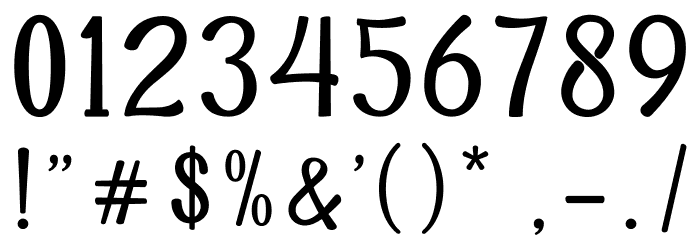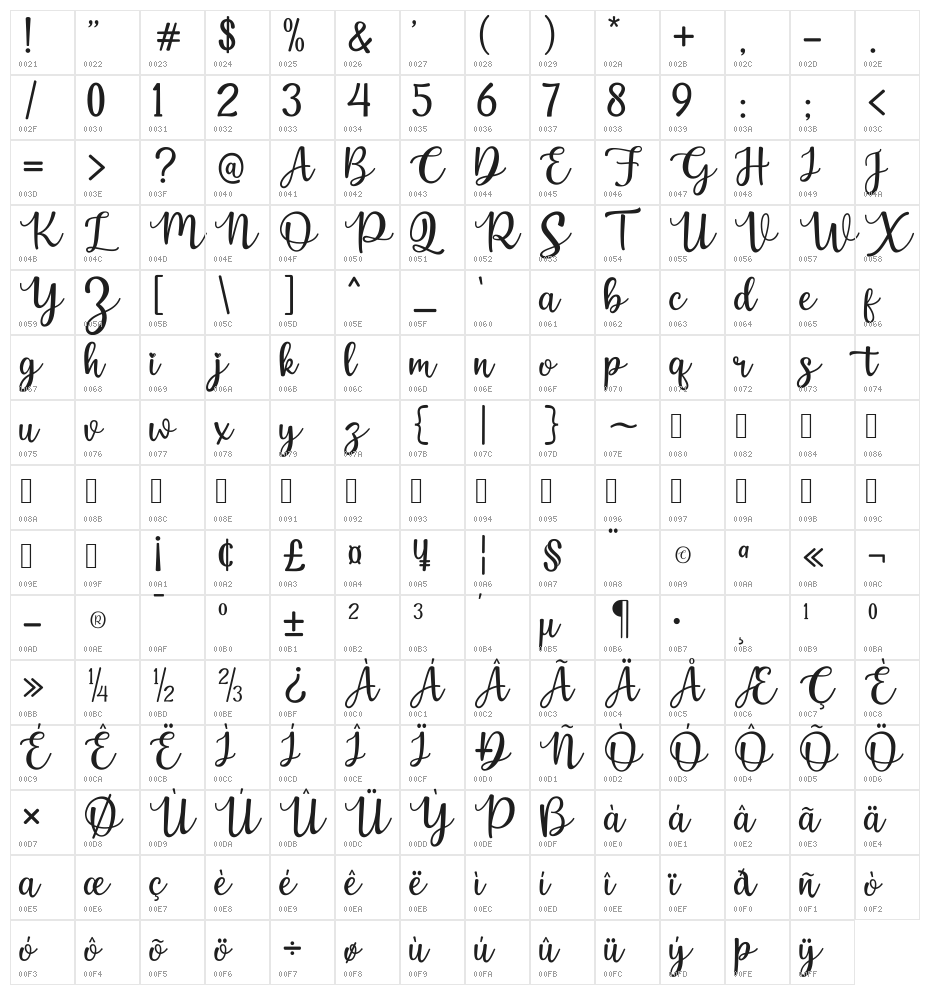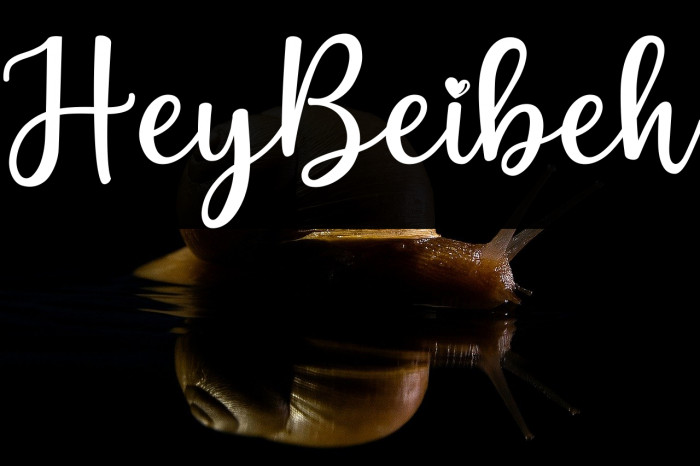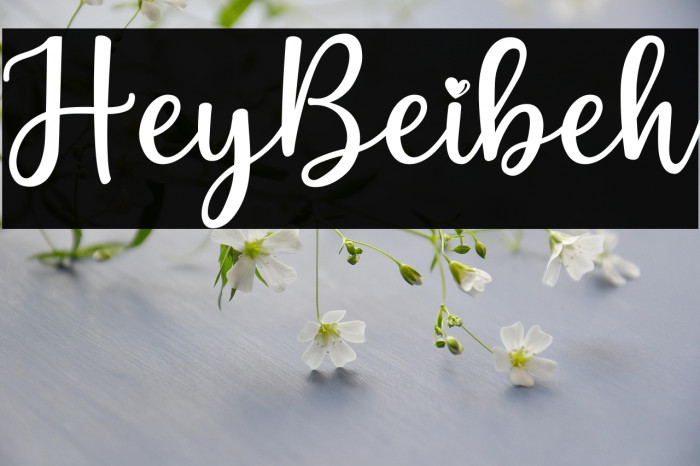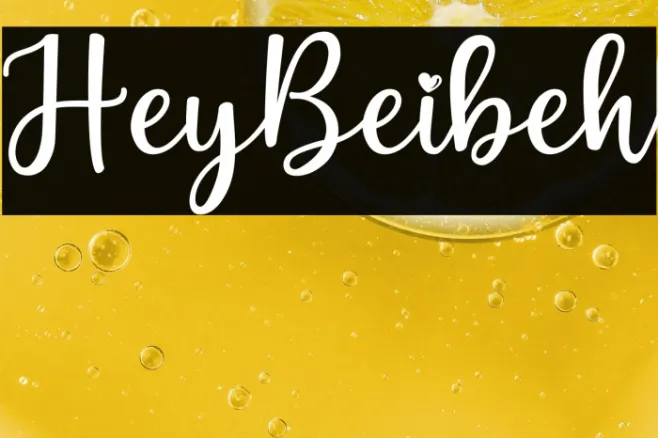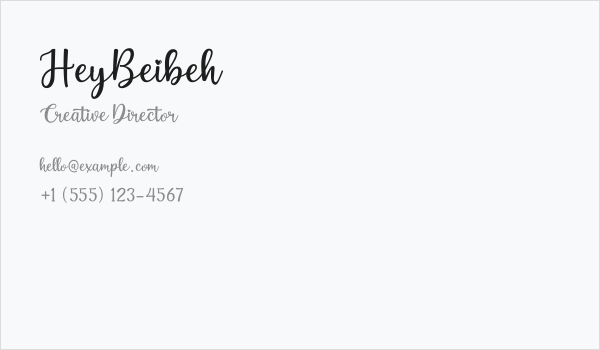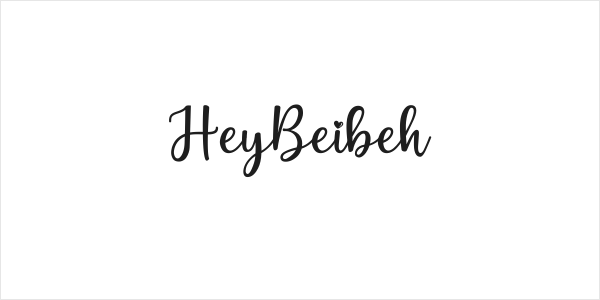
HeyBeibeh Font
HeyBeibeh Description
This font exudes a playful and whimsical charm with its flowing, cursive style. The uppercase letters are elegantly looped, while the lowercase letters maintain a consistent, smooth flow, adding a touch of sophistication. The numerals are clear and easy to read, complementing the overall design. Special characters are thoughtfully integrated, maintaining the font's cohesive appearance. The strokes are moderately thick, providing good readability without sacrificing style. This font is perfect for projects that require a personal and friendly touch, such as invitations, greeting cards, or branding materials.
| Proposed Projects | Ideal for invitations, greeting cards, branding, and personal projects. |